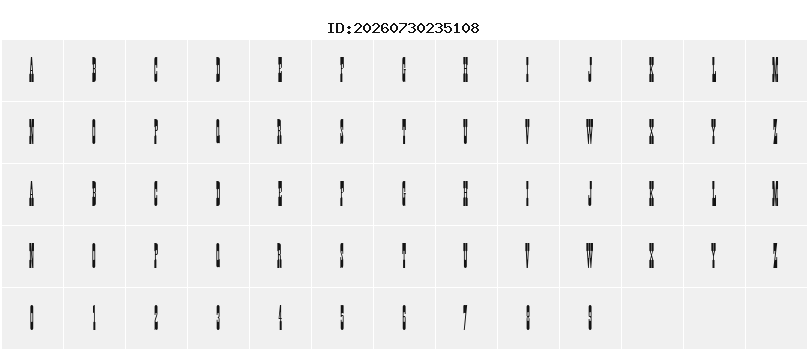
Longwood Preview
About Longwood.ttf
Longwood.ttf is a modern, elegant sans-serif font designed for ultimate readability and visual harmony. Perfect for branding, headlines, web design, and print materials.